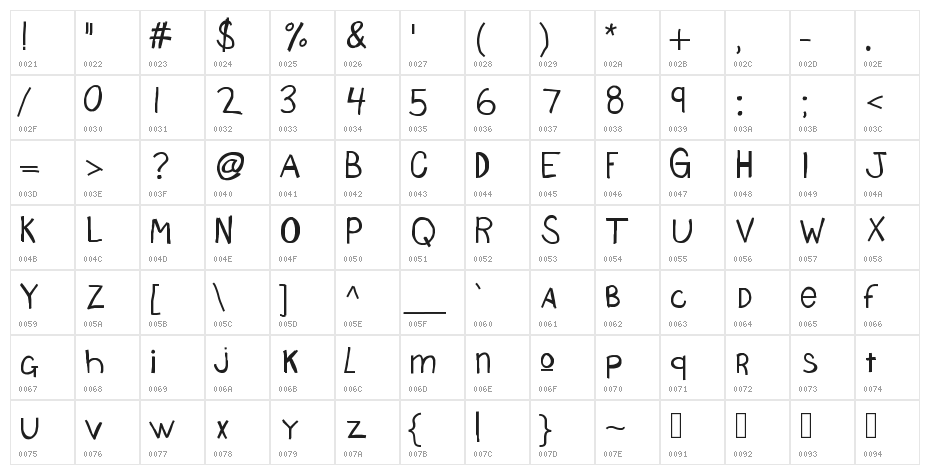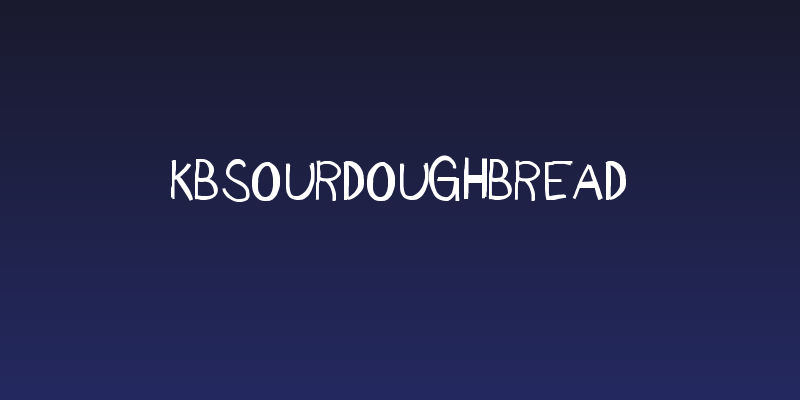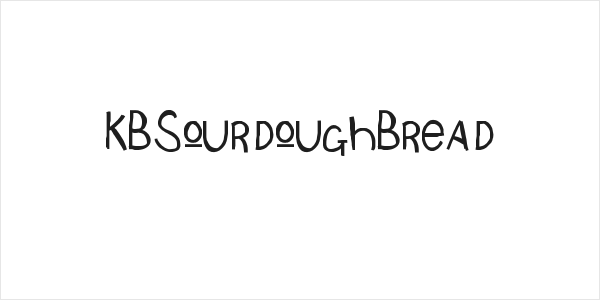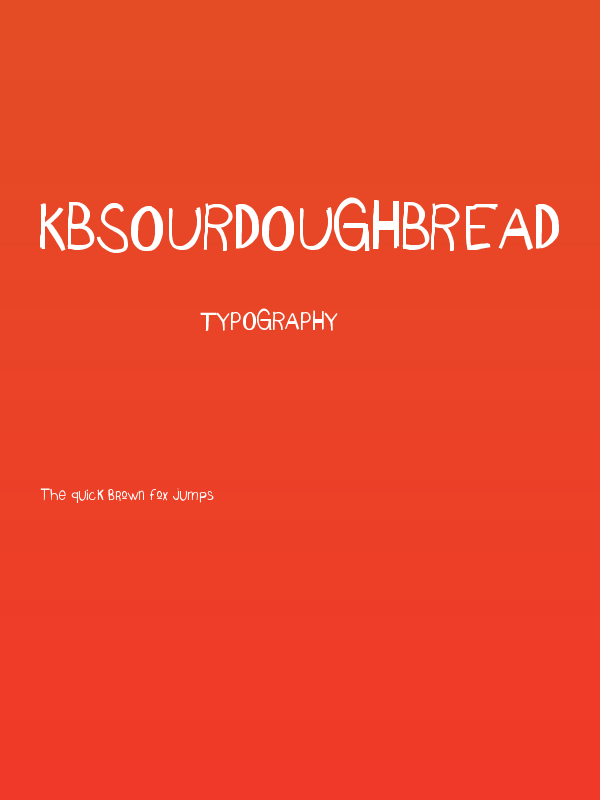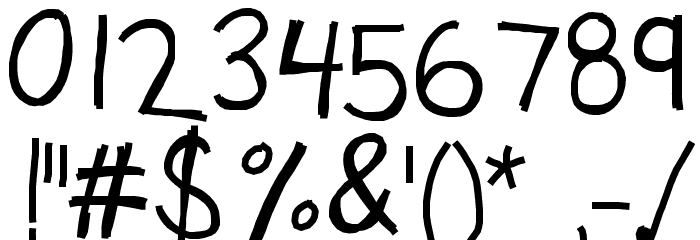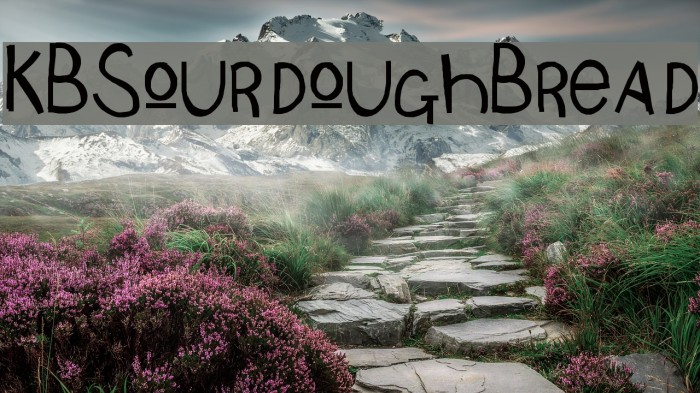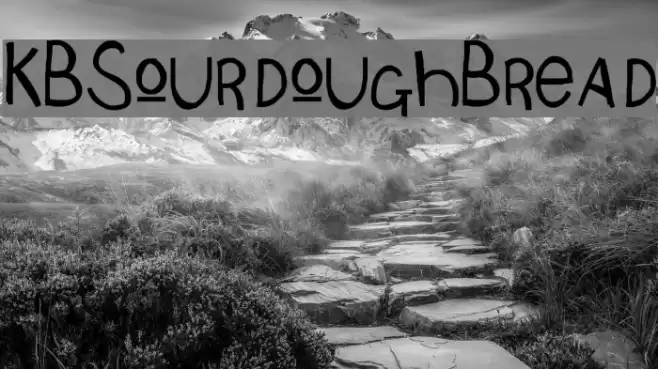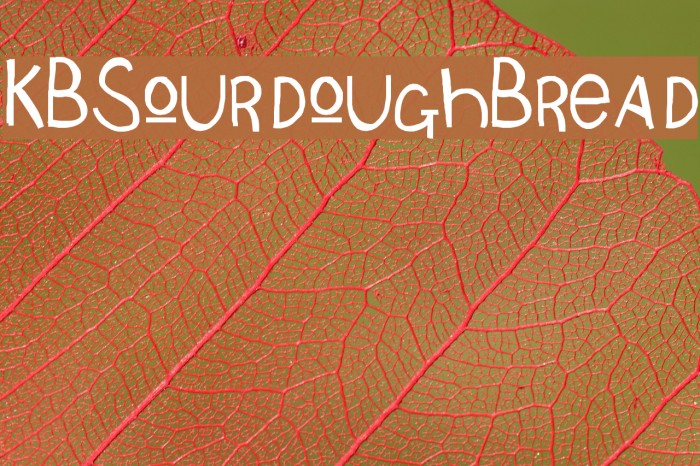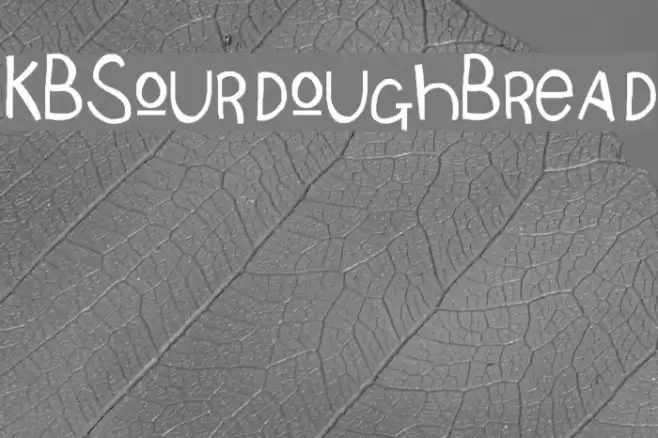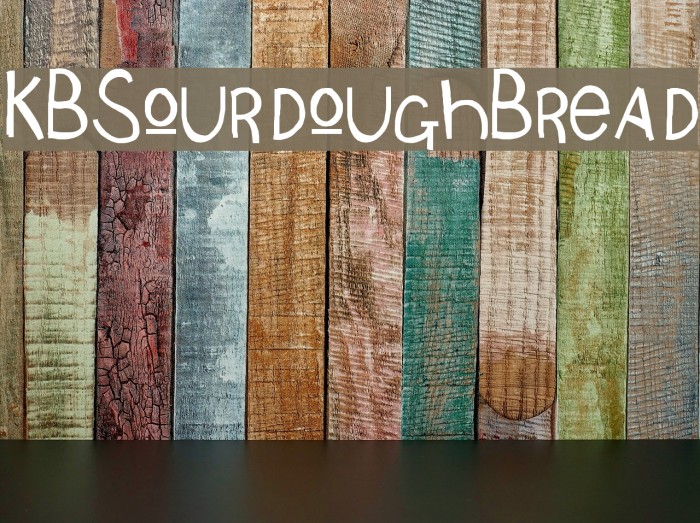
KBSourdoughBread Font
This font features a playful and informal style, characterized by its hand-drawn appearance. The letters have an uneven, slightly wobbly quality, giving them a casual and approachable feel. The strokes vary in thickness, adding to the hand-crafted look. The uppercase and lowercase letters maintain a consistent style, with rounded edges and a slightly irregular baseline. Numbers and special characters follow the same aesthetic, making the font versatile for creative projects. Its unique charm makes it suitable for designs that aim to convey warmth and friendliness.
| Proposed Projects | Ideal for children's books, greeting cards, playful branding, and informal invitations. |